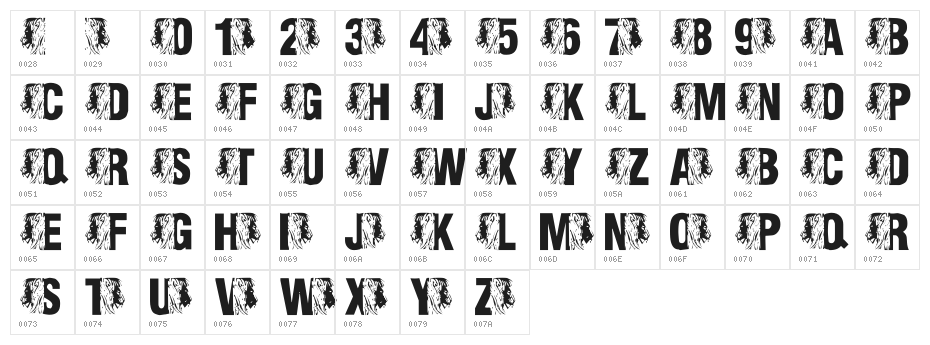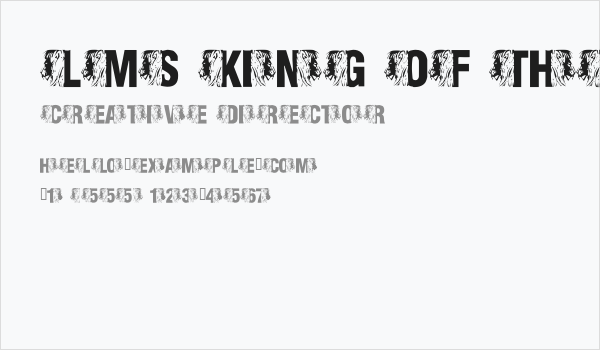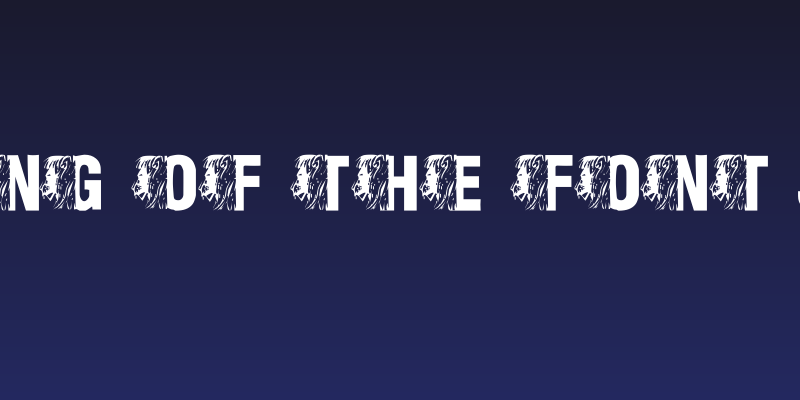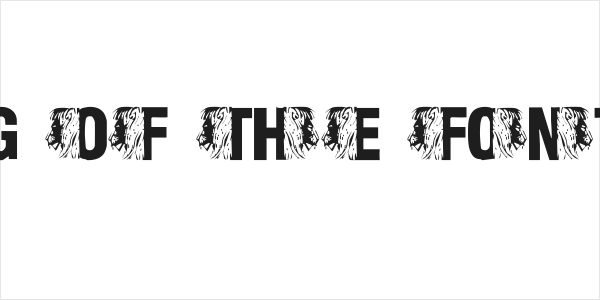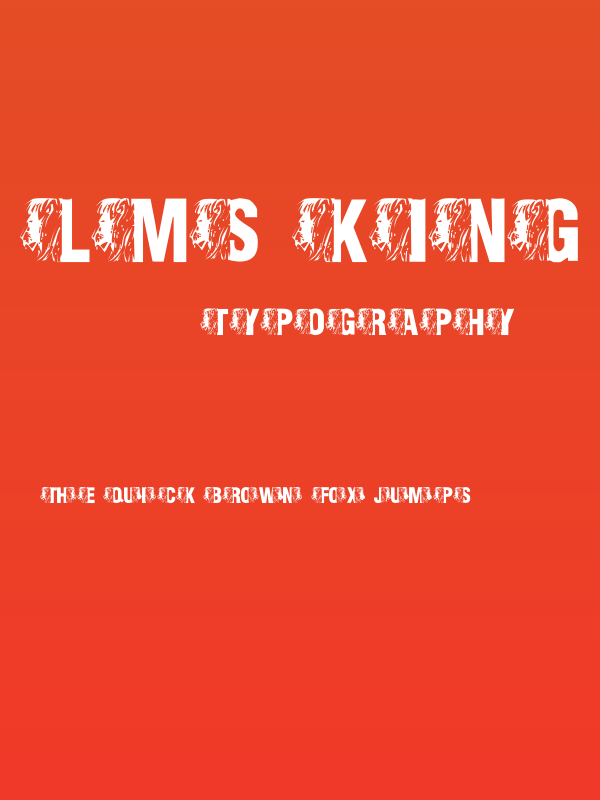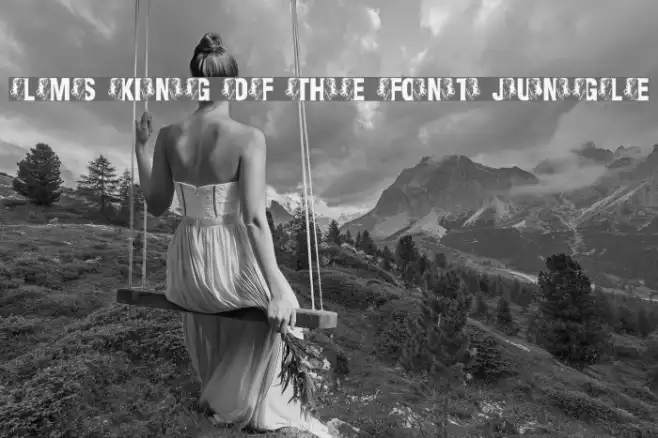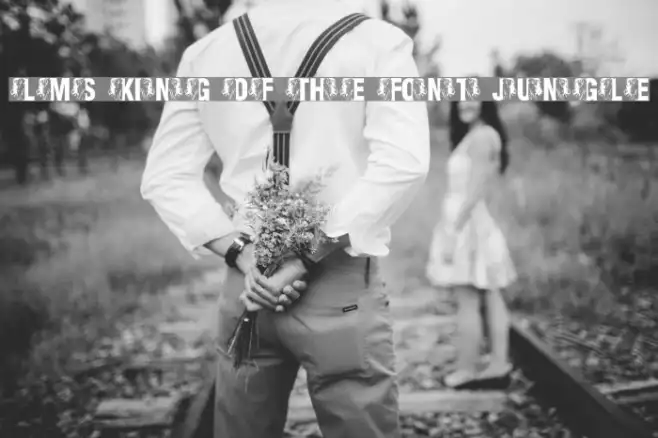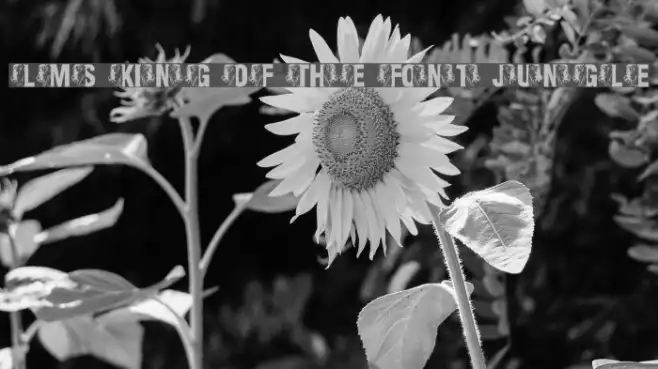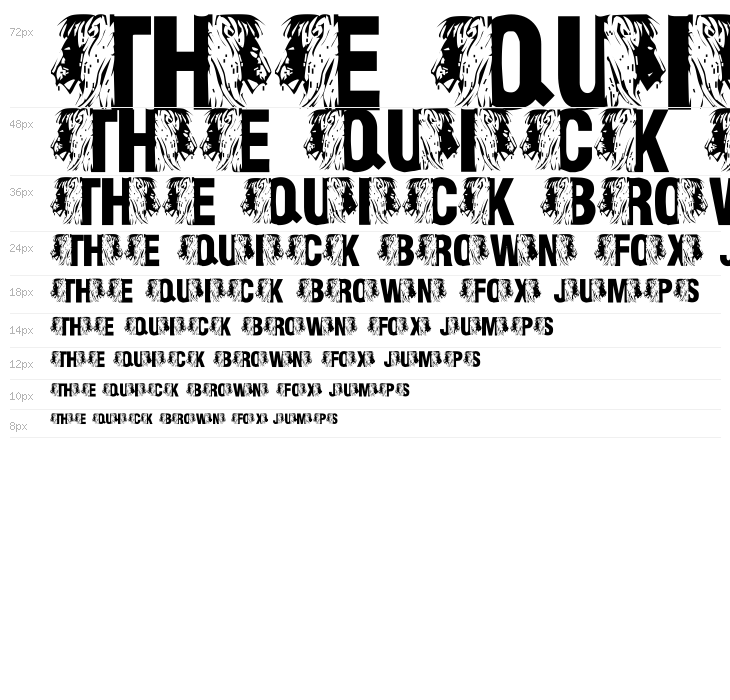
LMS King Of The Font Jungle Font
LMS King Of The Font Jungle Description
This font features a bold and adventurous style, with each character intricately designed to incorporate the image of a lion's face. The letters are uppercase and lowercase, with numbers and special characters also included. The design is highly decorative, making it ideal for projects that require a strong visual impact. The strokes are thick and consistent, providing a sense of strength and power. The unique integration of the lion motif within each character adds a wild and untamed aesthetic, perfect for themes related to nature, wildlife, or strength.
| Proposed Projects | Ideal for wildlife-themed posters, adventure branding, zoo advertisements, or any project needing a bold, nature-inspired typeface. |